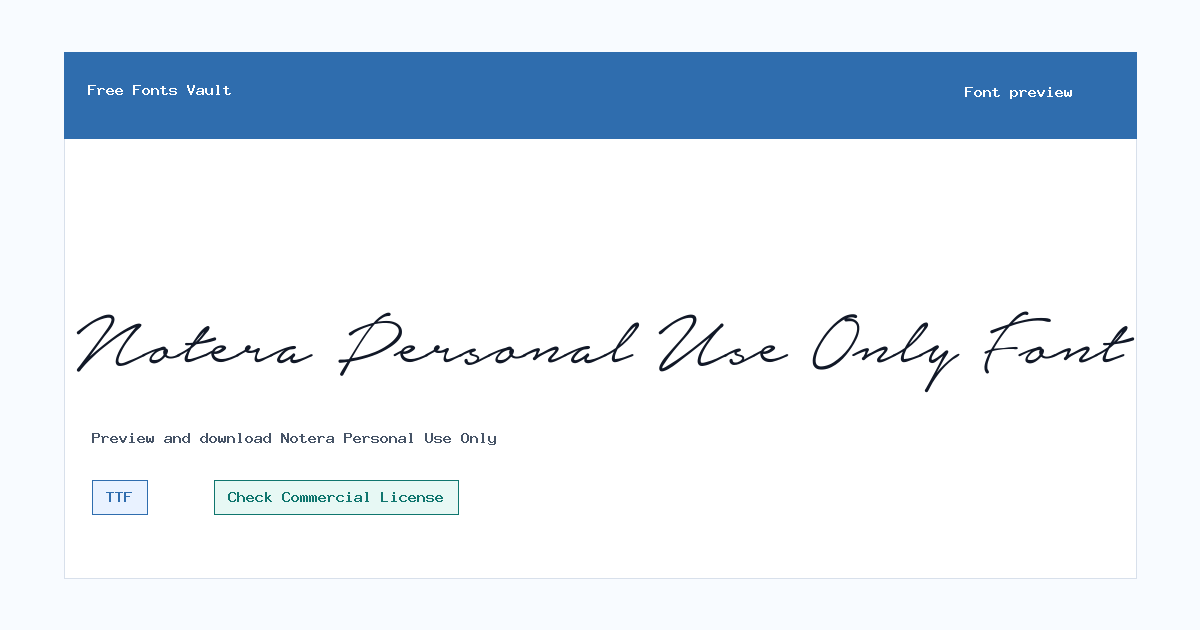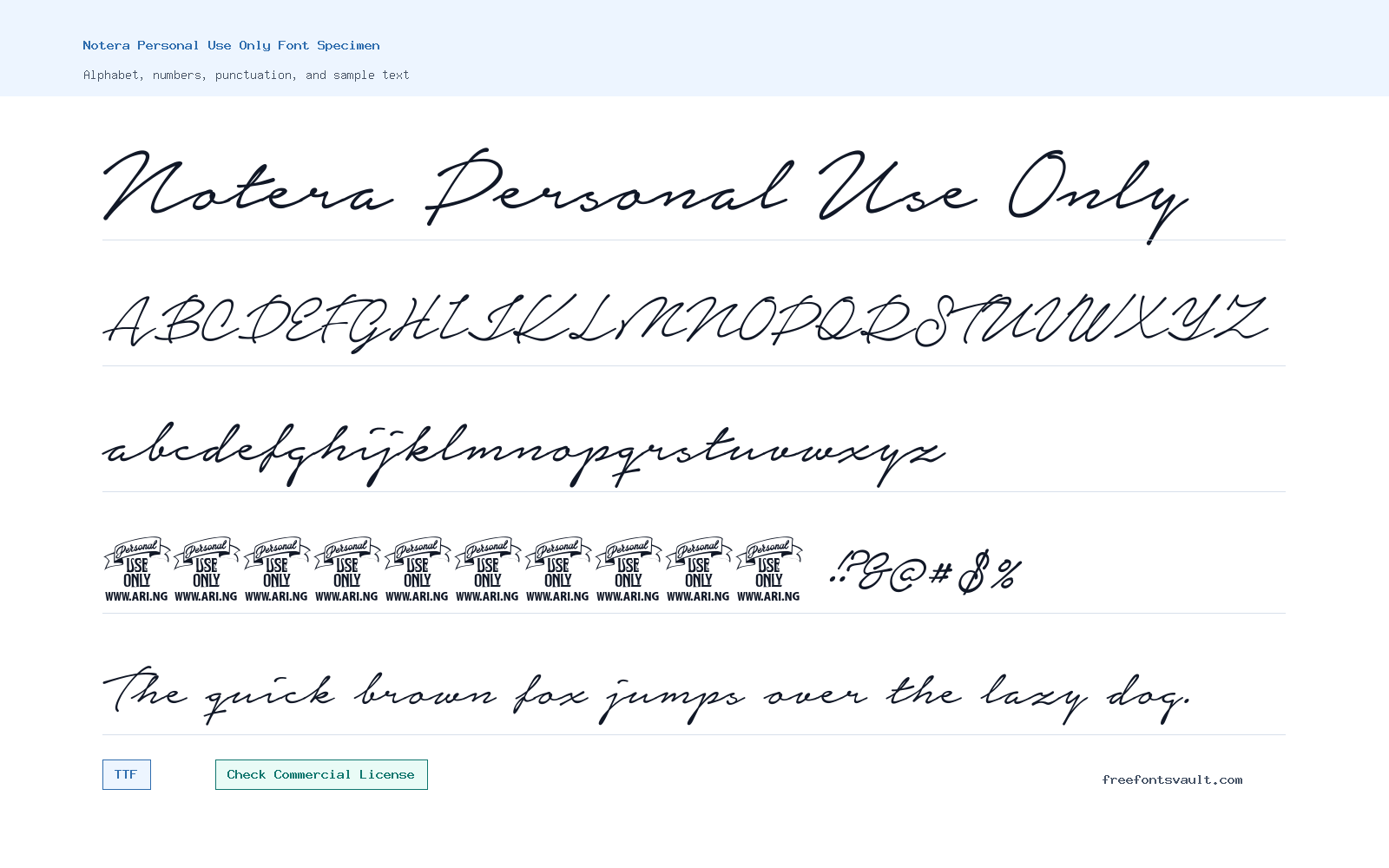
Notera Personal Use Only
Notera Personal Use Only is a script-style TTF font with a handwritten feel, suited to short text where you want a soft, personal look.
Notera Personal Use Only works best when treated as a display font rather than a long-reading text face. Its script character makes it a good choice for names, short headings, invitation-style wording, quote graphics, labels, and personal craft designs. Use the preview box to test your exact words, especially if your design depends on capital letters, repeated letters, or tight spacing.
Notera can bring a softer, more expressive tone to personal stationery, wedding mood boards, thank-you cards, quote images, packaging mockups, and name-based artwork. Keep the background simple and give the script room to move. If a phrase becomes difficult to read, shorten the line or use Notera only for the key name while another font handles the supporting text.
- Script-style appearance suited to short display text and decorative wording
- Best tested at larger sizes where the handwritten forms can stay clear
- Personal invitations, greeting cards, and scrapbook-style layouts
- Short quote graphics, name designs, and social media captions
- Decorative headings where a handwritten script look is wanted
What kind of designs is Notera good for?
It is best for short decorative text such as names, invitations, cards, quote images, labels, and personal projects that need a handwritten script look.
Can I use Notera for body text?
It is better for display text. For paragraphs or small text, use a simpler companion font and keep Notera for headings or accent words.